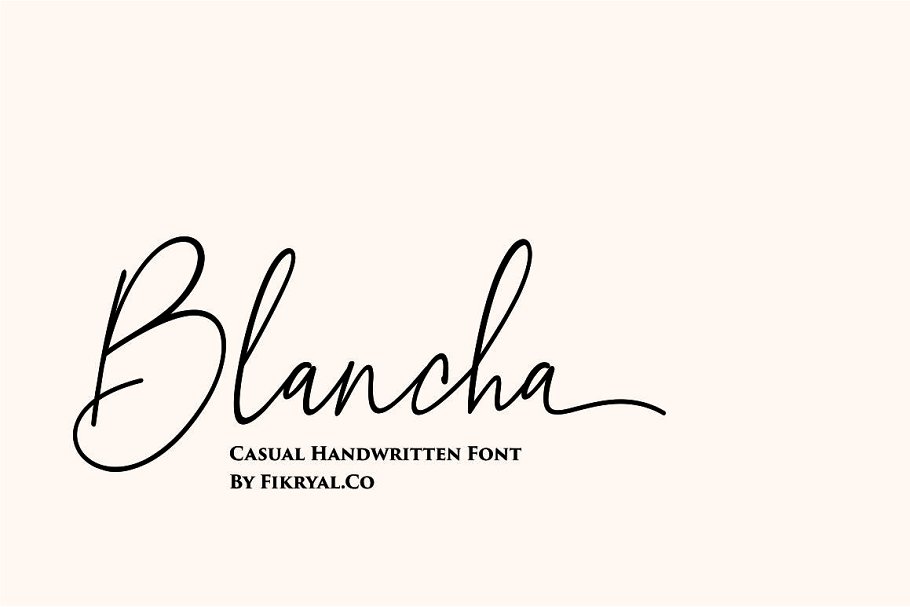
Introducing Blancha - Casual Handwritten Font, the perfect addition to your font collection! Created by Muhamad Nuralif, this font is not just any ordinary font - it's a masterpiece that can bring your design projects to life. Whether you're a designer, marketer, or business owner, Blancha is the font that will take your designs to the next level.
Blancha is a script font that is versatile and can be used for a wide range of purposes. It is the best font for logos and is ideal for designing logos for gaming, especially for the popular game Fortnite. With its casual handwritten style, Blancha is perfect for creating logos that are unique and eye-catching.
Blancha is not just for logos, though. It is perfect for invitations, stationery, wedding designs, social media posts, advertisements, product packaging, product designs, labels, photography, watermarks, and special events. The possibilities are endless with Blancha.
Blancha comes with a full set of uppercase and lowercase letters, lowercase swashes, multilingual symbols, numerals, and punctuation. The font is easy to read and looks great on any device or screen.
Blancha is a natural handwritten font that exudes warmth and authenticity. It captures the essence of human touch, making it the perfect font for designs that need a personal touch. With Blancha, you can create designs that stand out and capture your audience's attention.
In summary, Blancha - Casual Handwritten Font is a must-have for anyone looking to elevate their design projects. Its versatility, uniqueness, and natural handwritten style make it the perfect font for logos, invitations, social media posts, and more. If you're ready to take your designs to the next level, add Blancha to your font collection today! If you have any questions, feel free to drop a message to Fikryal Studio.